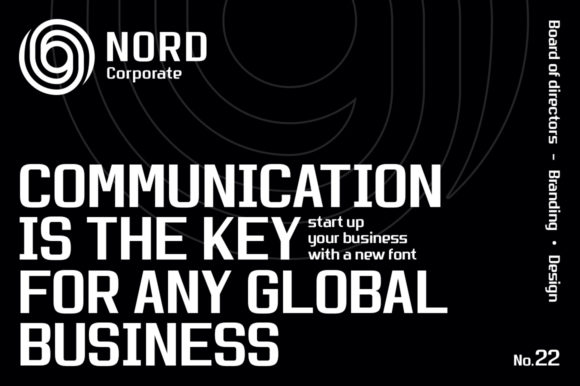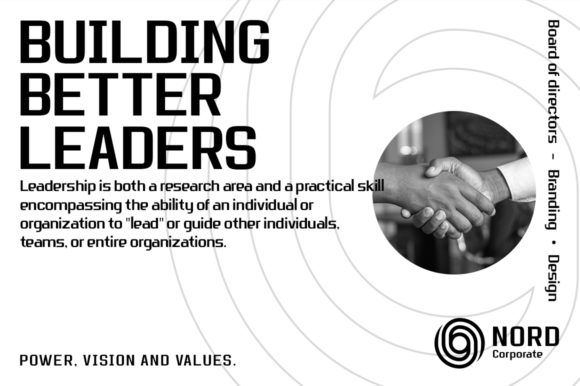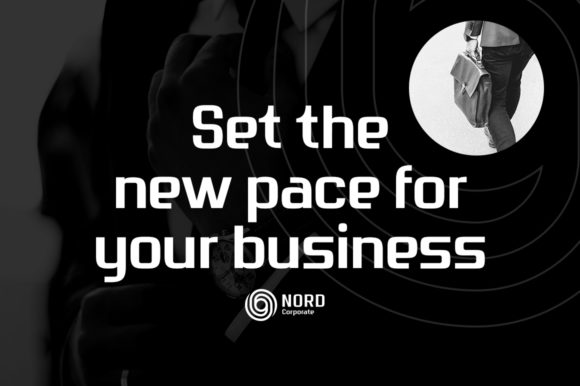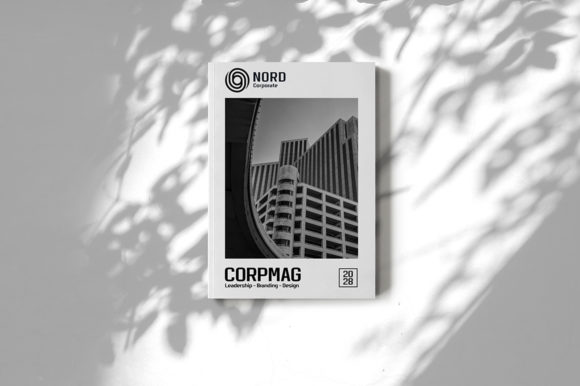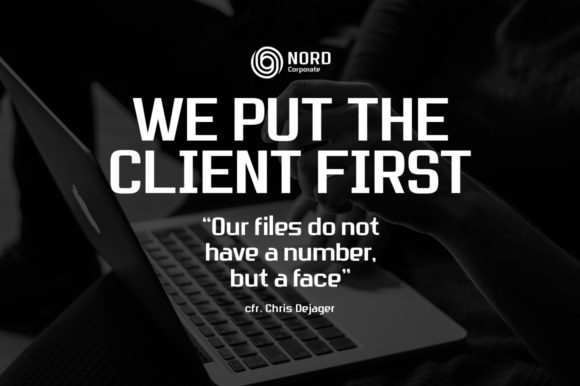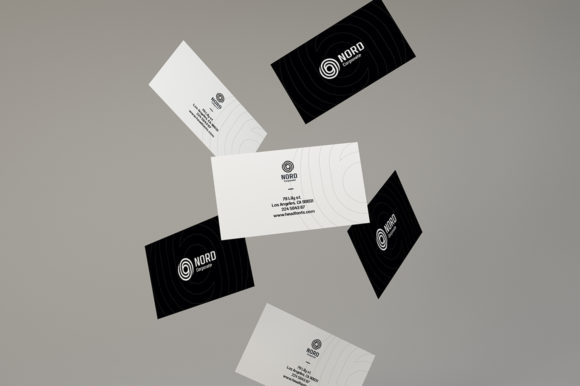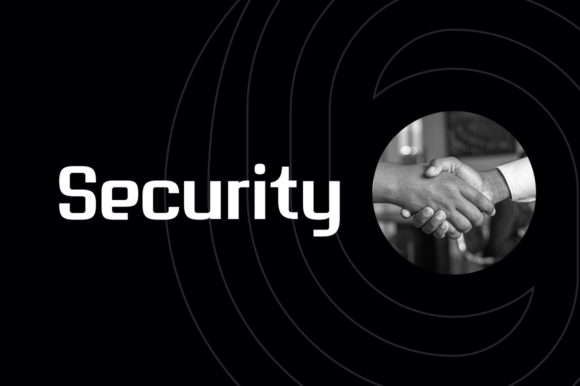
Nordhead Font
About Nordhead Font
Nordhead is a modern, clean font that features a corporate vibe, making it perfect for corporate branding, banners, flyers, and much more.